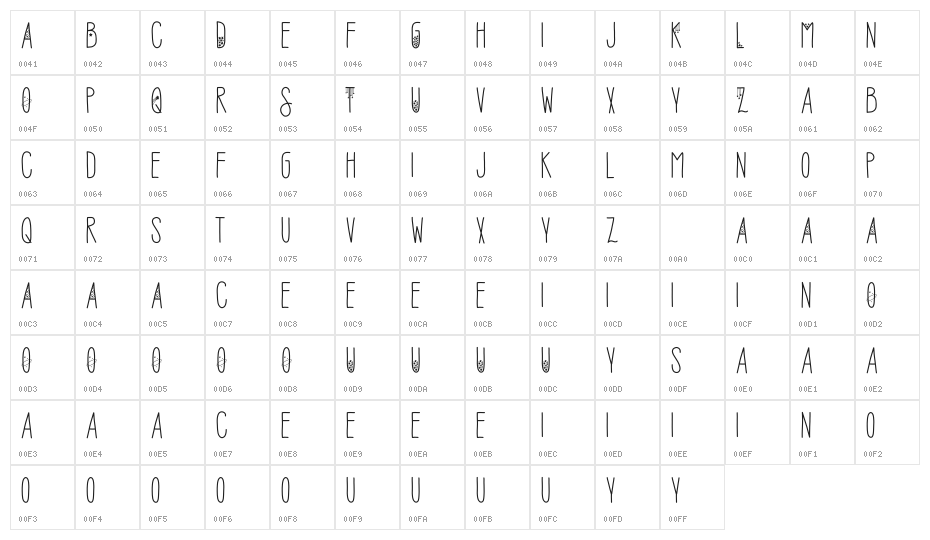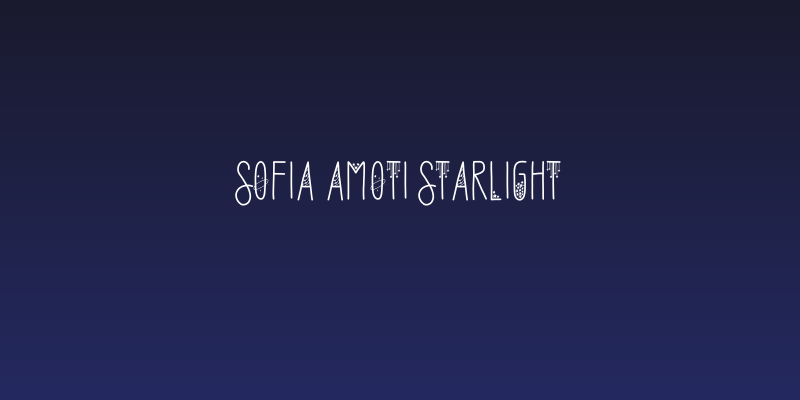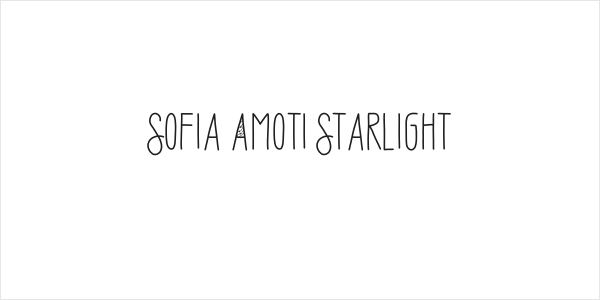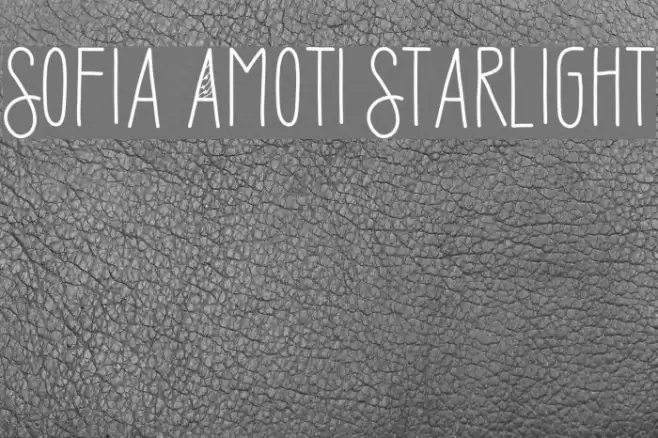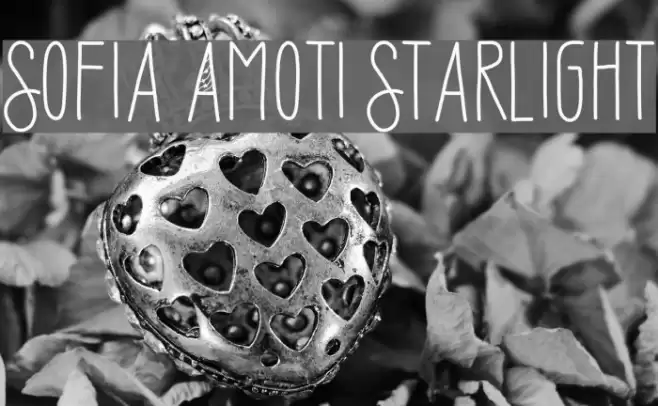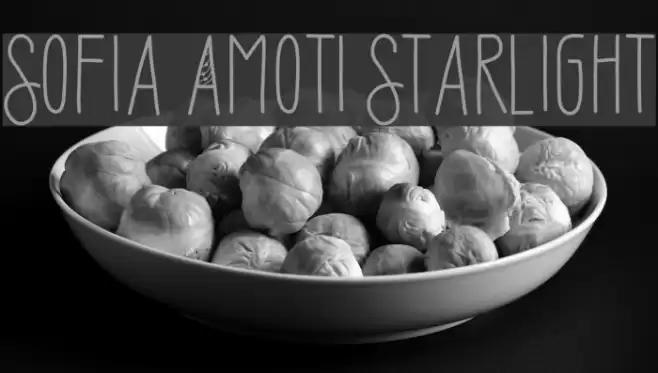
Sofia Amoti Starlight Font
Sofia Amoti Starlight Description
This whimsical and playful font features a unique blend of decorative elements and clean lines. Each character is adorned with charming star and celestial motifs, adding a touch of magic and creativity. The uppercase letters are tall and slender, with varying embellishments that give each letter its own personality. The lowercase letters maintain a consistent style, complementing the uppercase with their simplicity and elegance. The numbers and special characters follow the same enchanting theme, making this font perfect for projects that require a touch of fantasy and imagination.
| Use Case | Headlines, Logos, Creative projects |
| Proposed Projects | Ideal for children's books, fantasy-themed invitations, playful branding, and creative posters. |